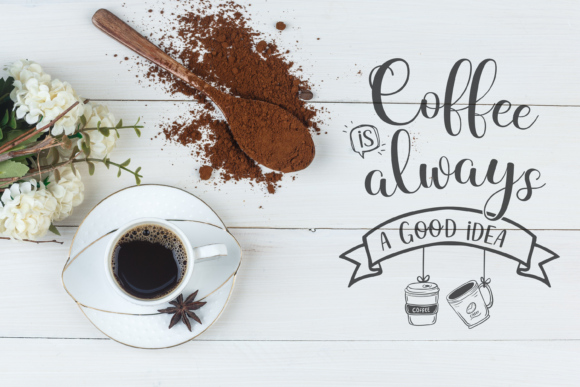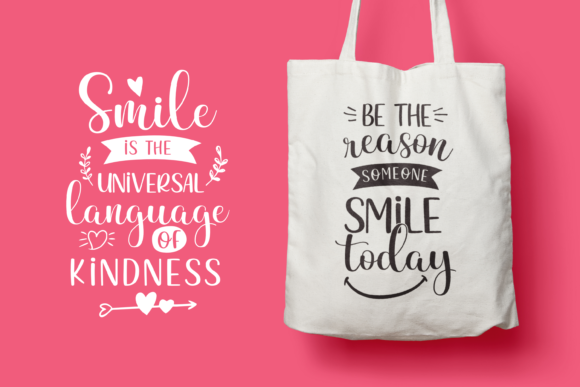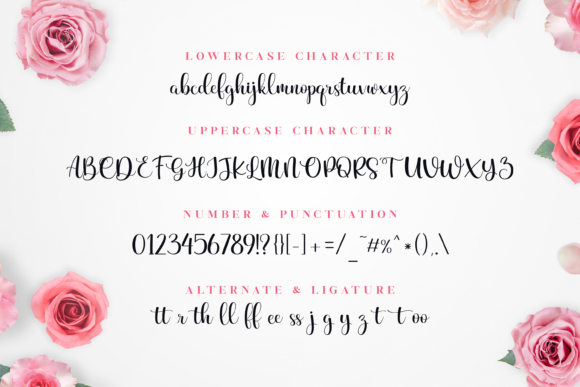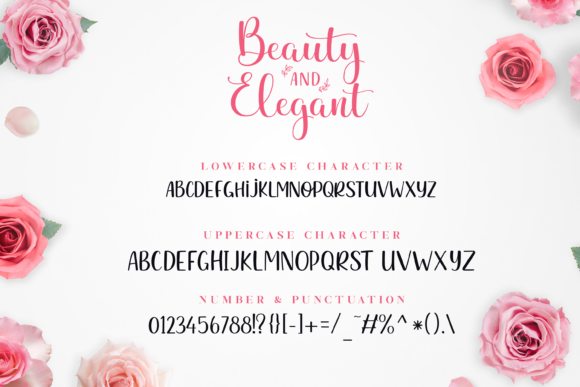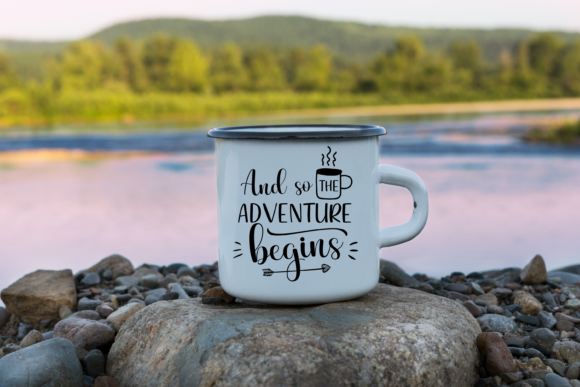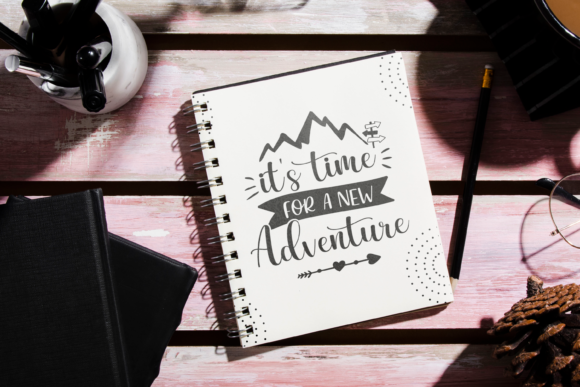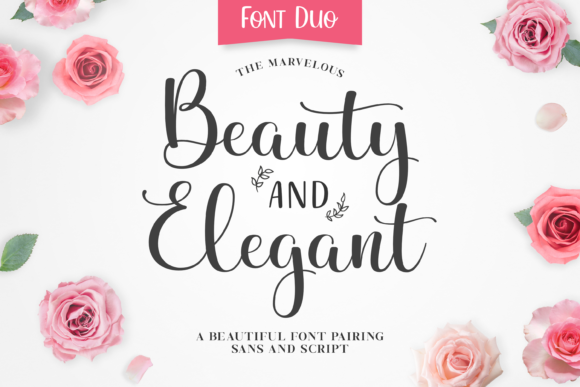
Unlocking the Power of Beauty and Elegant Font: Elevate Your Designs to New Heights
Are you tired of using the same old fonts in your designs? Do you want to add a touch of sophistication and elegance to your projects? Look no further than the Beauty and Elegant font duo. This stunning combination of handwritten and sans serif fonts is incredibly versatile and can elevate any design to new heights.
The Perfect Pairing: Handwritten and Sans Serif
The Beauty and Elegant font duo is a match made in heaven. The handwritten font adds a personal and whimsical touch, while the sans serif font provides a clean and modern contrast. This pairing allows you to create visually appealing and engaging designs that will capture the attention of your audience.
The handwritten font is perfect for adding a touch of warmth and personality to your designs. It’s ideal for use in:
- Headings and titles
The sans serif font, on the other hand, is great for adding a touch of modernity and sophistication to your designs. It’s perfect for use in:
- Body text and paragraphs
- Captions and subtitles
- Buttons and CTAs
- Tables and charts
The Beauty and Elegant font duo is incredibly versatile, making it perfect for a wide range of design projects. Whether you’re working on a:
- Wedding invitation or stationery
- Fashion brand or boutique
- Restaurant or food blog
- Travel brochure or website
…this font duo will help you create stunning designs that will leave a lasting impression.
Why Choose Beauty and Elegant Font?
So, why should you choose the Beauty and Elegant font duo for your next design project? Here are just a few reasons:
- Unique and eye-catching: This font duo is unlike anything you’ve seen before. The combination of handwritten and sans serif fonts creates a unique and eye-catching look that will set your designs apart.
- Incredibly versatile: The Beauty and Elegant font duo can be used in a wide range of design projects, from elegant wedding invitations to modern fashion brands.
- Easy to read: Both fonts are easy to read, making them perfect for use in body text and paragraphs.
- High-quality: This font duo is of exceptionally high quality, with crisp and clean lines that will look great in any design.
Tips for Using Beauty and Elegant Font
Here are a few tips for getting the most out of the Beauty and Elegant font duo:
- Mix and match: Experiment with different combinations of the handwritten and sans serif fonts to create visually appealing designs.
- Use contrasting colors: Use contrasting colors to make your designs pop and create visual interest.
- Play with font sizes: Experiment with different font sizes to create hierarchy and emphasis in your designs.
- Add textures and patterns: Add textures and patterns to your designs to create depth and interest.
The Beauty and Elegant font duo is a powerful tool for designers and crafters looking to elevate their designs to new heights. With its unique and eye-catching combination of handwritten and sans serif fonts, this font duo is incredibly versatile and can be used in a wide range of design projects. Whether you’re working on a wedding invitation, fashion brand, or travel brochure, the Beauty and Elegant font duo is sure to help you create stunning designs that will leave a lasting impression.